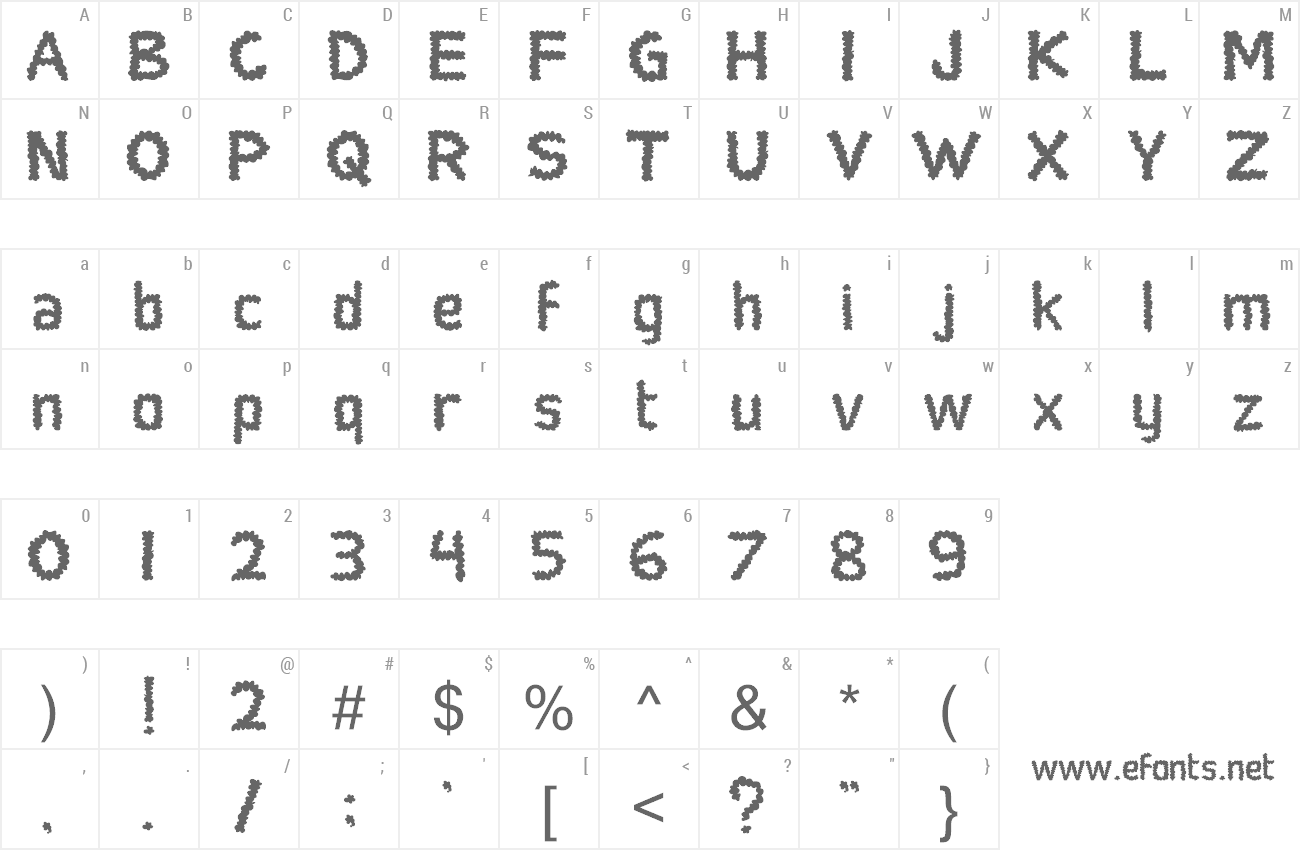
| Font name: | Social Monster |
| Author: | Adien Gunarta |
| Note by Adien Gunarta | |
I made this font for my new class, i.e XI IS 1 Class (a social science class). It's named MONSTER! For commercial use, please contact me first! |